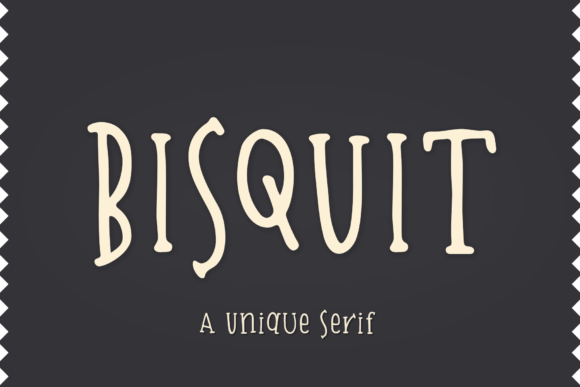
The Bisquit Font: A Deliciously Unique Blend of Elegance and Cheerfulness
Bisquit fuses elegance and cheerfulness into one truly unique font experience. Its distinctive charm lies in its ability to balance refined lines with a dash of whimsy, making it perfect for designers, crafters, and creative hobbyists looking to add a personal touch to their projects.
- Unique blend of elegance and playfulness ✅
- Highly legible, even at small sizes 📚
- Extensive range of OpenType features and glyphs 🔍
- Works beautifully for both digital and print projects 📊
- May not be the best fit for very formal or traditional designs ⚠️
- Some users may find the font’s playfulness too attention-grabbing 😅
The Story Behind Bisquit: Designer Inspiration
Bisquit’s creator was inspired by the art of French patisserie – the intricate designs, the delicate flavors, and the joy of sharing sweet treats with others. This font is a love letter to the world of baking, with its elegant lines and playful flourishes.
| Author | Ayca Atalay |
Q: What makes Bisquit unique?
A: Bisquit’s unique blend of elegance and playfulness sets it apart from other fonts. Its extensive range of OpenType features and glyphs makes it a versatile choice for a wide range of projects.
Q: Is Bisquit suitable for body text?
A: Yes, Bisquit is highly legible, even at small sizes, making it suitable for body text. However, its playful nature may make it more suitable for headings or titles.